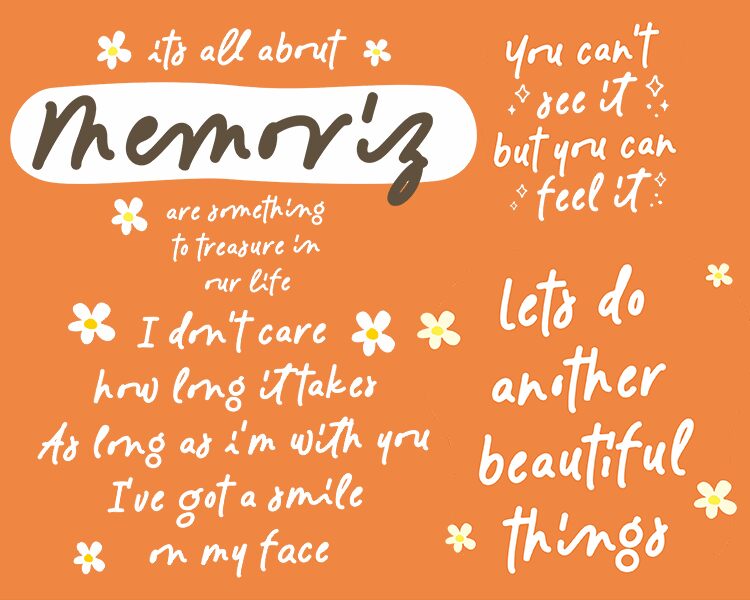
Memoriz font by Four Lines is a striking handwritten font with a casual elegance and expressive flow that will fit perfectly into your next design. Each letter achieves smoothness and consistency through the natural curves, slants, and constant add-on details which contribute to the overall remarkable modern feel of the font.
Free handcrafted fonts like Memoriz can instantly amplify your current work, especially typography designs where text is highlighted. Other designs include headings for blogs or packaging design projects like invitation cards, magazine covers, clothing tags/stamps/stickers/templates.